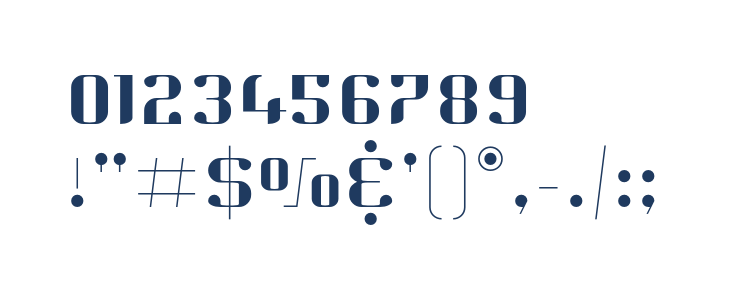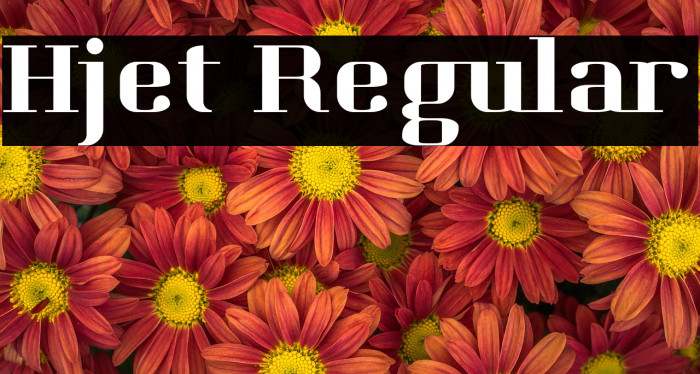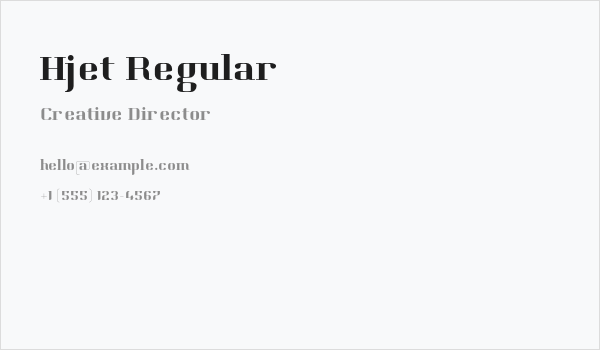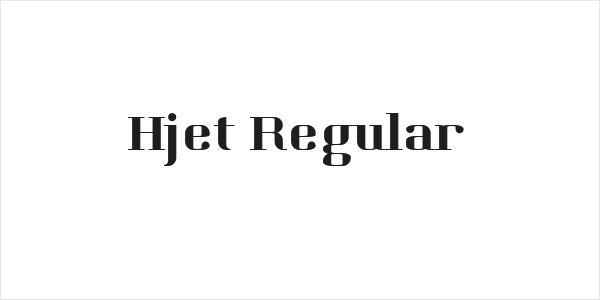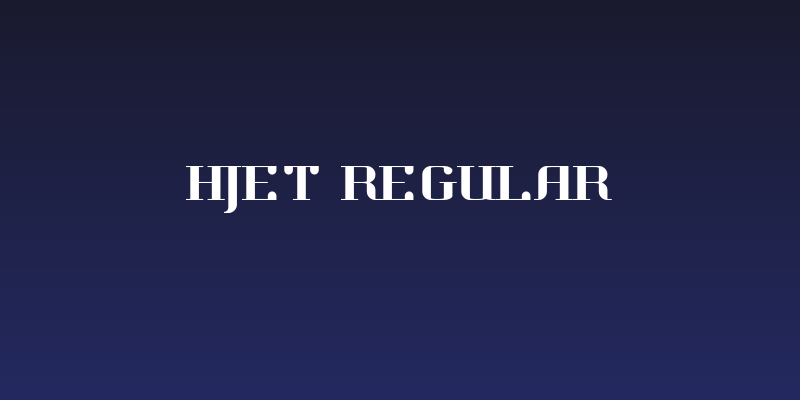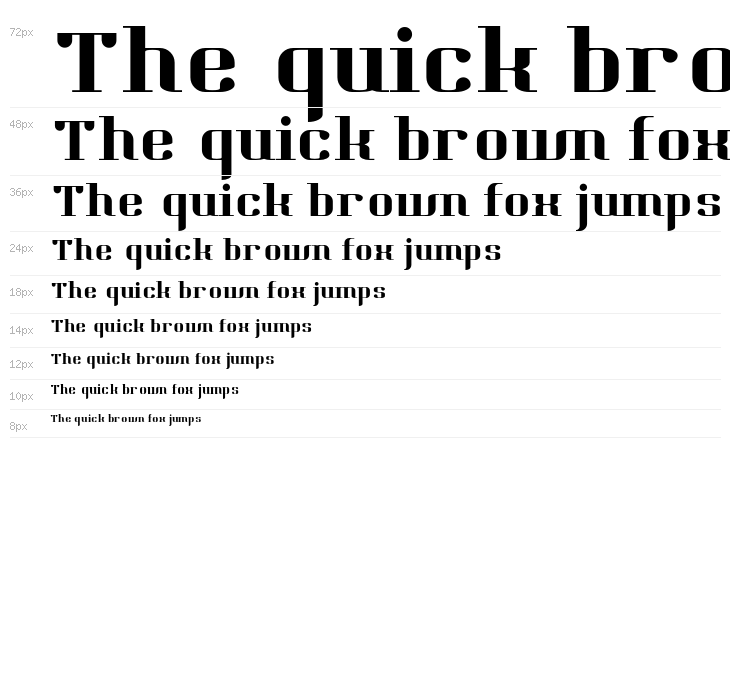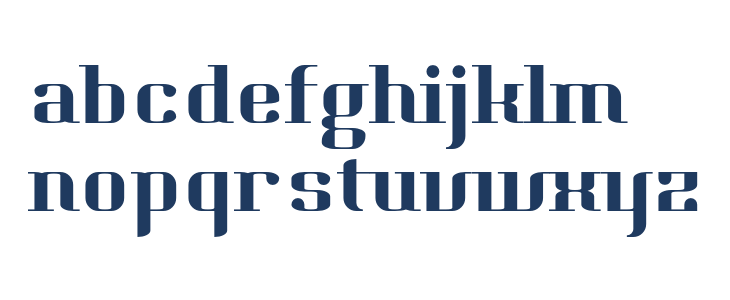
Hjet Regular Font
Hjet Regular Description
This font features a bold and striking design with a modern twist. The characters are constructed with a combination of thick and thin strokes, creating a high contrast that enhances readability while maintaining a unique aesthetic. The uppercase letters are particularly distinctive, with angular and geometric elements that give them a futuristic feel. The lowercase letters complement this style with a more rounded approach, yet they retain the overall sharpness. Numbers and special characters are designed to match the boldness of the alphabet, ensuring consistency across all text. This font is perfect for making a statement in any design project.